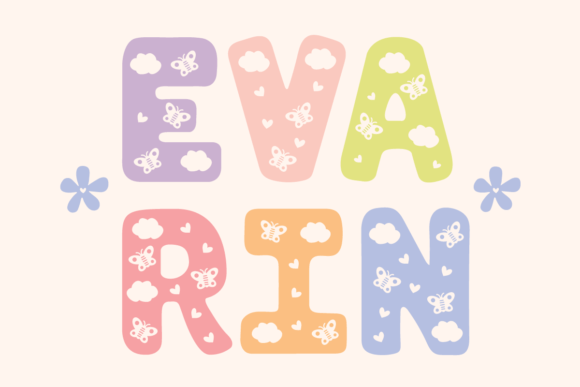
Evarin Font: A Cute Decorative Font for Your Designs
Evarin Font is a charming and playful font that is perfect for adding a touch of sweetness to your designs. This decorative font features tiny clouds, butterflies, and hearts that evoke a sense of charm and innocence. In this article, we will explore the features and benefits of Evarin Font, and how you can use it to enhance your designs.
What is Evarin Font?
Evarin Font is a decorative font that is designed to add a cute and playful touch to your designs. It features tiny and delicate illustrations of clouds, butterflies, and hearts that are intricately woven into the letters. The font is perfect for creating designs that require a touch of whimsy and charm.
Features of Evarin Font
- Cute and Playful Design: Evarin Font features a unique and playful design that is sure to capture the attention of your audience. The tiny clouds, butterflies, and hearts add a touch of whimsy and charm to your designs.
- Decorative Letters: Each letter in Evarin Font is intricately designed with decorative elements that make it perfect for creating eye-catching designs.
- Versatile: Evarin Font is versatile and can be used for a variety of design projects, including invitations, greeting cards, posters, and more.
- Easily Readable: Despite its decorative nature, Evarin Font is easily readable, making it perfect for designs that require a touch of elegance and sophistication.
Benefits of Using Evarin Font
Using Evarin Font in your designs can have several benefits. Here are a few:
- Adds a Touch of Whimsy: Evarin Font adds a touch of whimsy and playfulness to your designs, making them more engaging and attention-grabbing.
- Perfect for Kids and Adults Alike: The font’s cute and playful design makes it perfect for designs targeting kids and adults alike.
- Unique and Creative: Evarin Font is a unique and creative font that can help you stand out from the crowd and make your designs more memorable.
- Eases Design Process: With Evarin Font, you can easily create stunning designs without having to spend hours on designing custom illustrations.
How to Use Evarin Font
Using Evarin Font is easy and straightforward. Here are a few tips to get you started:
- Pair it with Other Fonts: Pair Evarin Font with other fonts to create a unique and visually appealing design.
- Use it for Headings and Titles: Use Evarin Font for headings and titles to add a touch of elegance and sophistication to your designs.
- Experiment with Colors: Experiment with different colors to find the perfect combination that matches your brand’s aesthetic.
- Use it for Digital and Print Designs: Evarin Font can be used for both digital and print designs, making it a versatile font for all your design needs.
Who Can Use Evarin Font?
Evarin Font is perfect for a variety of designers and businesses, including:
- Graphic Designers: Graphic designers can use Evarin Font to create stunning designs for their clients.
- Small Business Owners: Small business owners can use Evarin Font to create eye-catching designs for their branding and marketing materials.
- DIY Crafters: DIY crafters can use Evarin Font to create custom designs for their craft projects.
- Event Planners: Event planners can use Evarin Font to create custom designs for event invitations and decor.
Evarin Font is a charming and playful font that can add a touch of sweetness to your designs. Its unique and creative design makes it perfect for a variety of design projects, from invitations and greeting cards to posters and more. With its versatility and readability, Evarin Font is a great addition to any designer’s toolkit.
- Is Evarin Font easy to read?: Yes, Evarin Font is easily readable, making it perfect for designs that require a touch of elegance and sophistication.